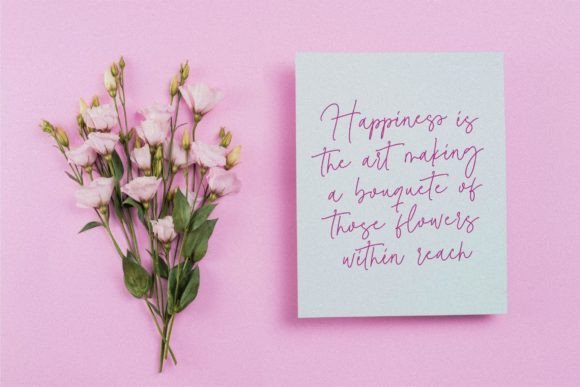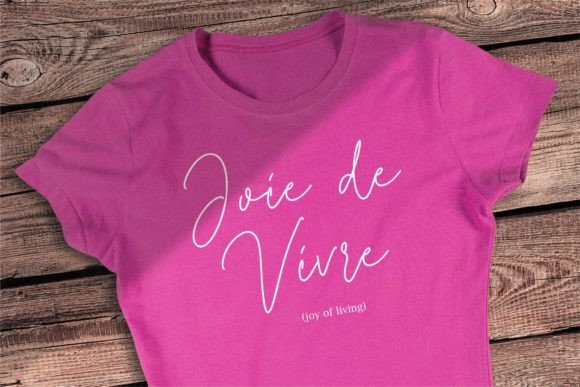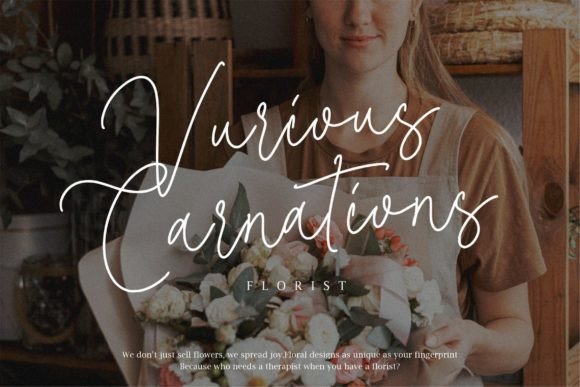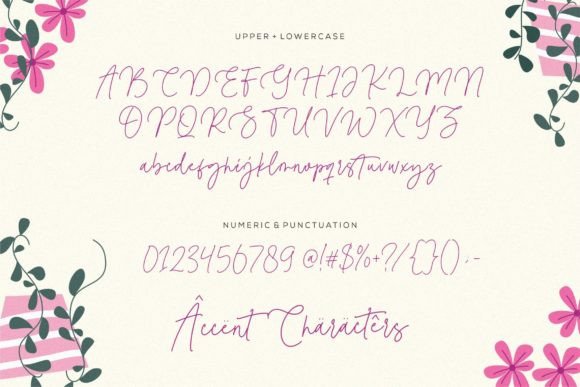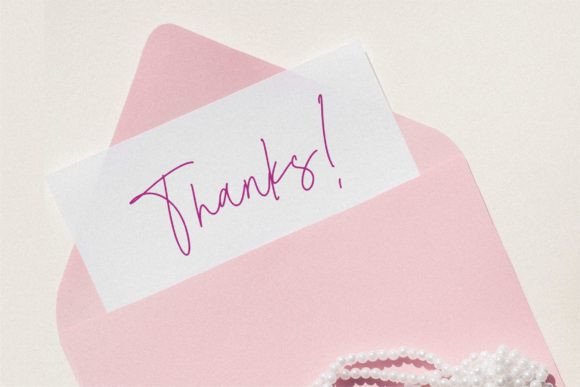
Introduction to Magenta Basket Font
Have you ever been working on a creative project, pouring your heart and soul into every detail, only to realize that the right font can make all the difference? For designers, the quest for the perfect font is a never-ending one, and it’s a challenge that can be both thrilling and frustrating. But what if you stumbled upon a font that’s not only beautiful but also incredibly versatile? Enter the Magenta Basket Font, a Monoline Handwritten font that’s clean, elegant, and perfect for a range of design projects.
With its smooth, effortless lines and understated sophistication, the Magenta Basket Font is a valuable resource for designers who want to add a touch of modernity to their work. Whether you’re working on a logo, branding, invitation, or packaging design, this font is sure to make a lasting impression. And the best part? It’s available for free download, making it a high-quality design resource that’s accessible to everyone.
- High-quality design resource with a unique and creative touch, ideal for various projects.
- Features a transparent background, allowing for seamless integration into any design.
- Perfect for creative projects, such as logos, branding, and typography-based art, where a unique and eye-catching font is essential.
Honest Review: Magenta Basket Font
As a designer, I’m always on the lookout for high-quality design resources that can elevate my creative projects. Recently, I stumbled upon the Magenta Basket Font, and I’m excited to share my honest review with you.
- ✨ Unique and playful design style that adds a touch of whimsy to any project
- ✨ High-quality font files that are crisp and clear, even at larger sizes
- ✨ Transparent background option that makes it easy to customize and combine with other design elements
- ⚠️ Limited character set, which may not be ideal for longer text-based projects
- ⚠️ Some users may find the font too ornate or distracting for certain design styles
Overall, I’m impressed with the Magenta Basket Font. Its unique design style and high-quality files make it a great addition to any designer’s toolkit. While it may not be perfect for every project, it’s a valuable resource for designers looking to add some visual interest to their work.
Magenta Basket Font
Designing with Magenta Basket Font
Magenta Basket Font is a versatile, high-quality design resource perfect for any creative project. Its unique aesthetic and transparent background make it a great addition to any visual design.
Tips for Getting the Most Out of Magenta Basket Font
For the best results, use Magenta Basket Font in conjunction with other high-quality design elements. Experiment with different font sizes, colors, and styles to create a unique and eye-catching design.
Common Use Cases for Magenta Basket Font
Magenta Basket Font is perfect for a variety of creative projects, including branding, packaging, and marketing materials. Its unique aesthetic and transparent background make it a great choice for designers looking to add a touch of elegance to their designs.